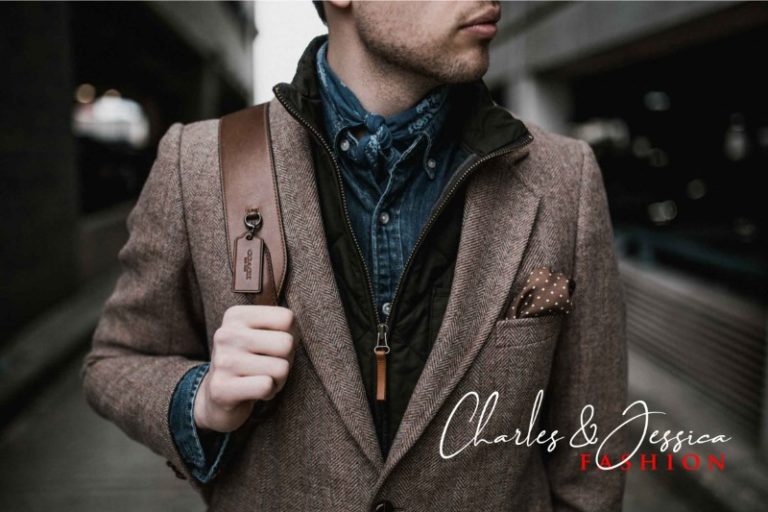
Brilliant – 3 Signature Font
Let us welcome the Brilliant 3 Signature Font!
Din Studio created Brilliant Signature, a modern signature typeface. It is ideal for signatures, name card designs, branding, product packaging, quotes, logos, book covers, and other exciting projects. This font, which combines elegant and casual styles, includes a full set of lowercase and uppercase letters, numerals, punctuation, and ligatures.
Features includes :
- Stylistic Alternates and Ligatures
- Character Sets A-Z
- Numerals and Punctuation (OpenType Standard)
- Accents (Multilingual Characters)